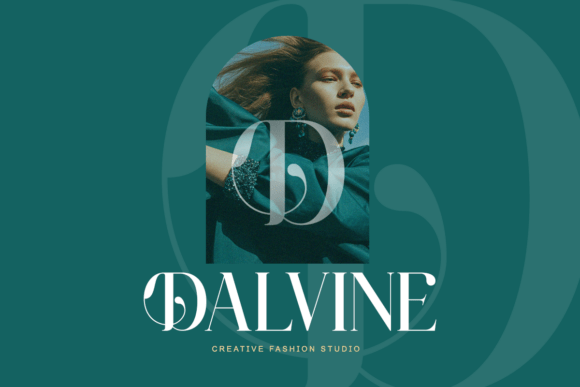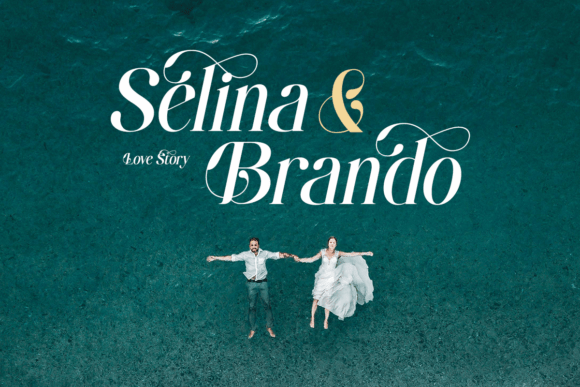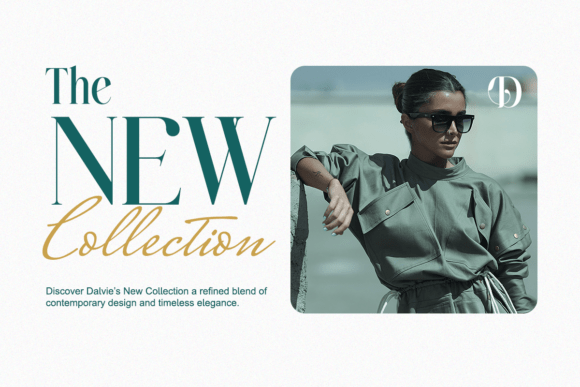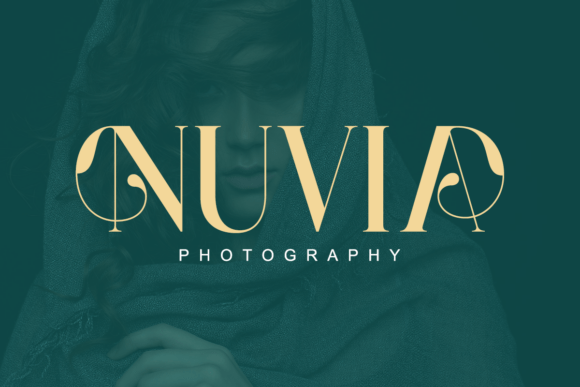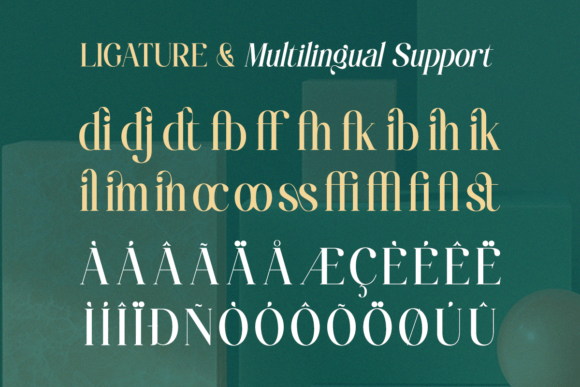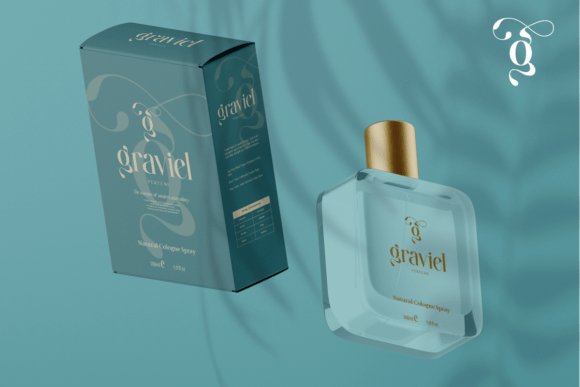
Aielenea Font: Elevate Your Design with Luxury Serif Typography
In the world of typography, few fonts capture the essence of luxury and elegance as effortlessly as Aielenea. This stunning typeface is a masterful blend of classic serif roots with avant-garde flourishes, making it the perfect choice for designers seeking to infuse their projects with high-end sophistication. Aielenea is more than just a font – it’s a statement of exclusivity and refined taste, engineered to make your designs shine.
The Epitome of Luxury Typography
Aielenea Luxury Serif Typeface is designed to define elegance in every project. Its extreme contrast, razor-thin lines, and breathtaking ornamental swashes make it a true masterpiece of luxury typography. This font is the epitome of high-fashion design, perfect for luxury jewelry logos, perfume packaging, and high-end editorial spreads. Every character in the Aielenea typeface feels like a work of art, offering a level of sophistication that few fonts can match.
Key Features of Aielenea Font
- Extreme Contrast: Aielenea’s dramatic contrast between thick and thin lines creates a visually stunning effect, perfect for headlines and titles.
- Razor-Thin Lines: The font’s delicate lines add a touch of refinement and elegance to any design.
- Ornamental Swashes: Aielenea’s decorative swashes add an extra layer of luxury and sophistication to your designs.
Using Aielenea Font for Maximum Impact
To get the best results from Aielenea, use it sparingly in large sizes for headlines or as a decorative initial. This will allow the font’s intricate details to shine and make a lasting impression on your audience. For a striking contrast, pair Aielenea with a minimal sans-serif font, which will help to balance out the ornate details of the typeface.
Perfect for Luxury Brands and Designers
Aielenea is the perfect choice for designers and luxury brands seeking to create high-end visual identities. Whether you’re working on a luxury jewelry logo, perfume packaging, or high-end editorial spreads, Aielenea font is sure to elevate your design to new heights. Its unique blend of classic and avant-garde elements makes it an excellent choice for brands seeking to stand out in a crowded market.
Why Choose Aielenea Font?
- Unparalleled Elegance: Aielenea’s luxurious design and elegant lines make it the perfect choice for high-end projects.
- Versatility: The font’s versatility makes it suitable for a wide range of applications, from luxury branding to editorial design.
In conclusion, Aielenea font is a masterpiece of luxury typography that is sure to elevate your designs to new heights. Its unique blend of classic serif roots with avant-garde flourishes makes it the perfect choice for designers seeking to infuse their projects with high-end sophistication. With its extreme contrast, razor-thin lines, and breathtaking ornamental swashes, Aielenea is the epitome of high-fashion design. Whether you’re a designer or a luxury brand, Aielenea font is the perfect choice for creating stunning visual identities that exude elegance and refinement.